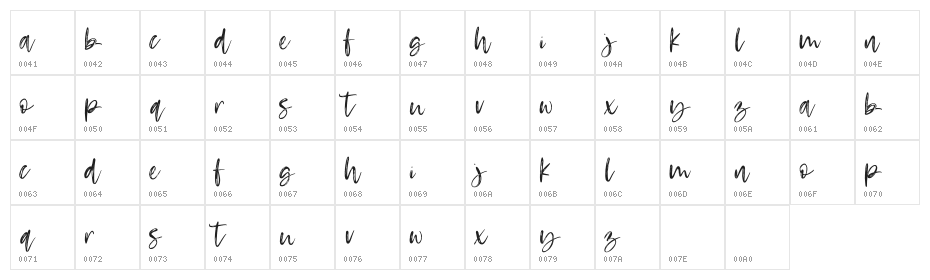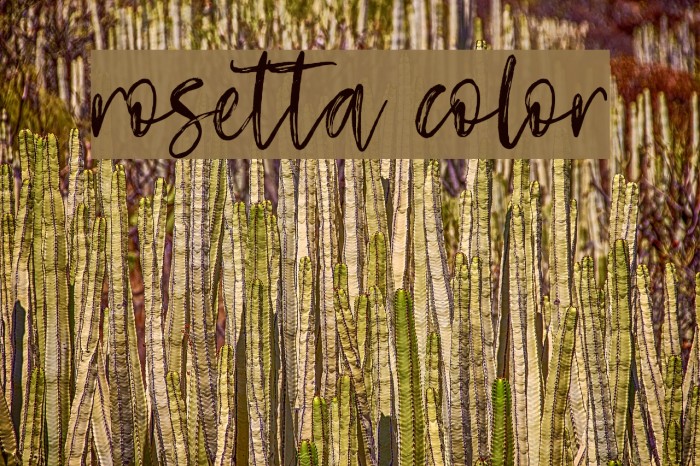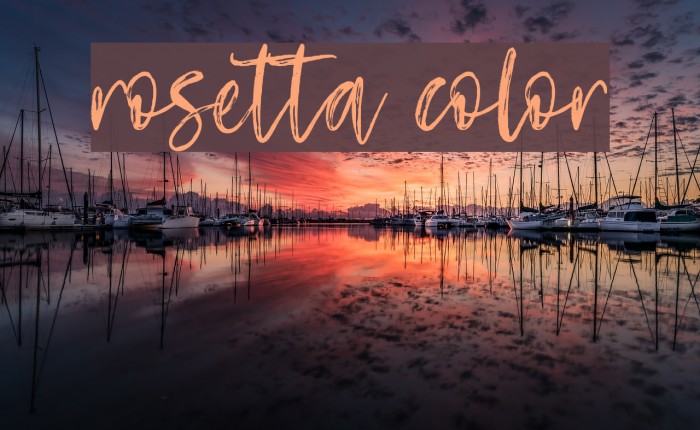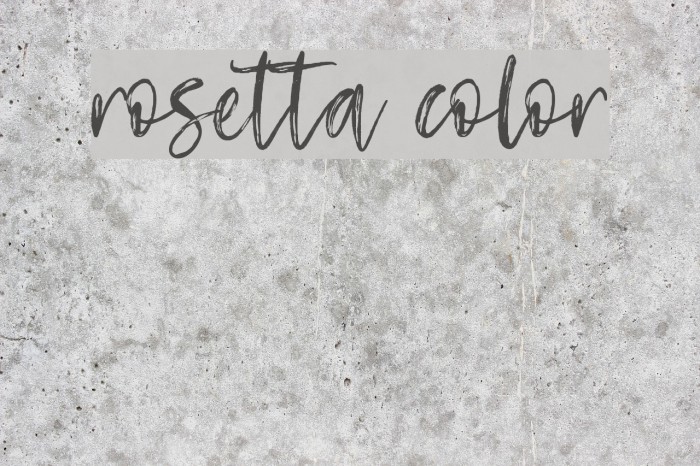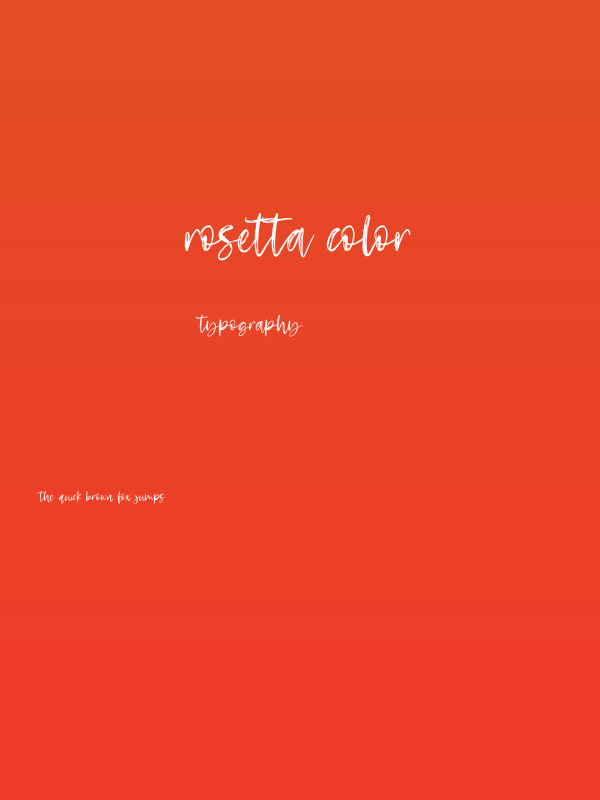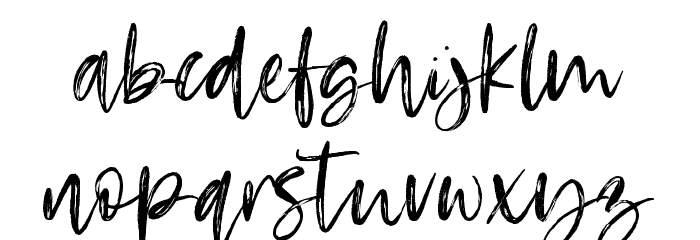
Rosetta Color Font
Rosetta Color Description
This font features a dynamic and expressive handwritten style, characterized by fluid strokes and a natural, organic flow. The letters are slightly slanted, giving a casual yet elegant appearance. The strokes vary in thickness, adding a sense of movement and energy to the text. The overall texture is slightly rough, reminiscent of ink on paper, which enhances its authenticity and charm. This font is perfect for adding a personal touch to any design, making it ideal for creative projects that require a humanistic and approachable feel.
| Proposed Projects | Ideal for wedding invitations, greeting cards, personal branding, and social media graphics. |